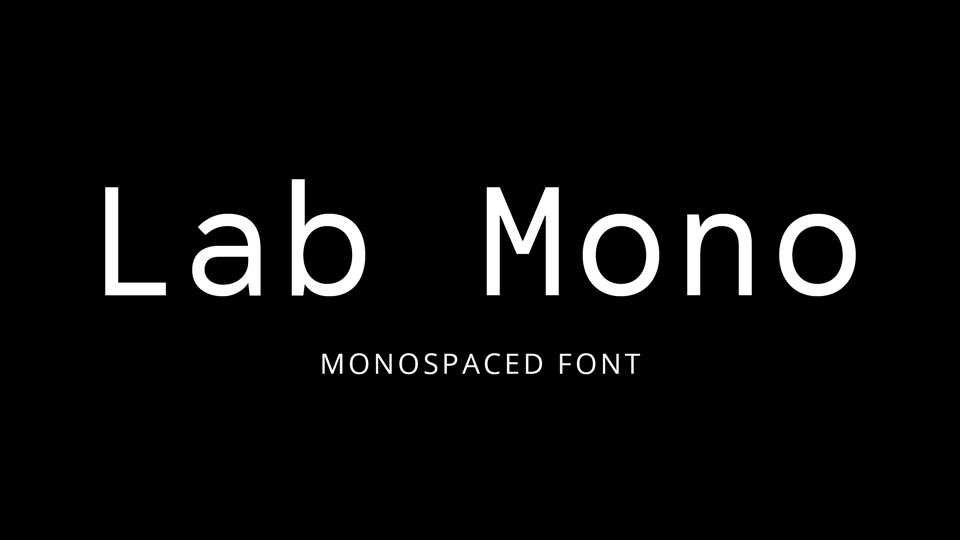
Download Lab Mono font, a grotesque-esque monospaced typeface based on the geometric forms. Lab Mono font has good distinguishability and legibility and fits for coding and tabular layout.
Designer: Martin Wecke